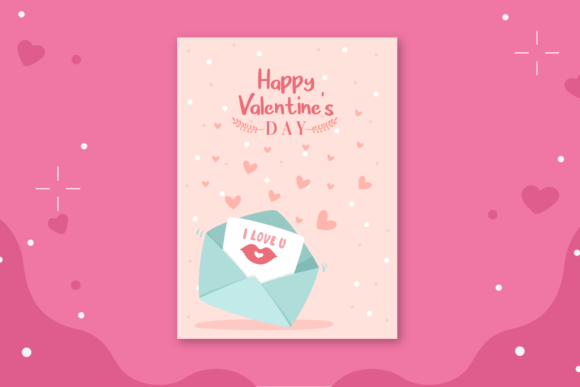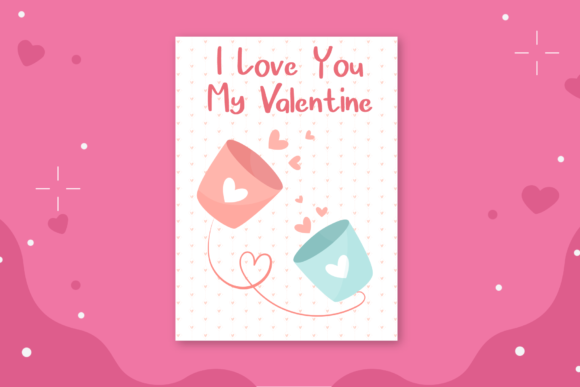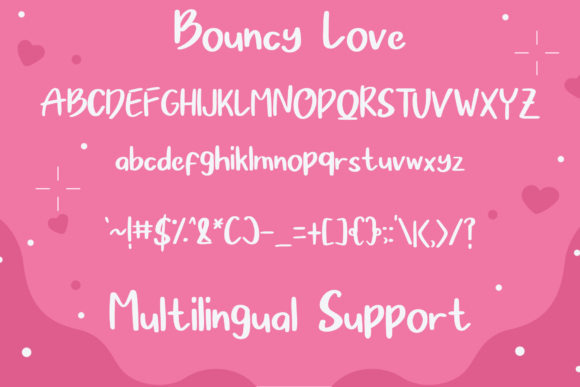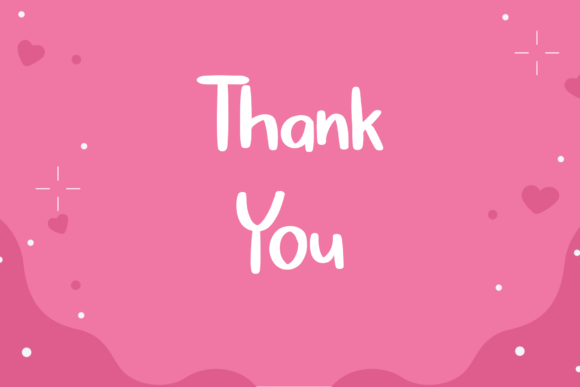
The Joy of Typography: Discovering the Bouncy Love Font
Have you ever been working on a design project and suddenly, the perfect font pops into your head? Maybe it’s the perfect combination of whimsy and sophistication that makes your heart skip a beat. For me, that moment came when I stumbled upon the Bouncy Love Font. Its playful, handwritten style is the perfect addition to any design that needs a dash of personality.
Bouncy Love Font is more than just a cute font – it’s a way to add a touch of warmth and personality to your designs. Whether you’re creating a greeting card, a social media post, or a logo, this font is sure to brighten up your work. Its value lies in its ability to convey a sense of playfulness and joy, making it a valuable tool for designers looking to add some visual interest to their projects.
Bouncy Love Font Key Features
- Character Set: 1280 glyphs, including Latin, Cyrillic, and Greek alphabets, as well as various symbols and emojis
- Font Size: Available in 8 font sizes, ranging from 8pt to 72pt
- Resolution: Supports high-resolution displays (Retina, 4K, etc.) with crisp and clear rendering
- Unique Characteristics: Features a playful, bouncy design with varying line widths, giving it a fun and energetic feel
- Font Weight: Available in 6 font weights, from Light to Black, allowing for a range of design possibilities
Bouncy Love Font Review
Overall, I think the Bouncy Love Font is a fun and playful addition to any design project. It’s perfect for those looking to add a whimsical touch to their branding or marketing materials. ✨ The font’s irregular shapes and bubbly lines give it a unique, hand-drawn feel that’s sure to grab attention.
Some of the things that really work well in this font include:
- Its ability to add a touch of personality to designs
- Its versatility – it can be used for a wide range of applications, from logos to social media graphics
- Its fun and carefree vibe, which is perfect for projects that need a bit of a lift
- It may not be the best choice for formal or professional designs, as its playful nature can come across as unpolished
- It can be difficult to read at smaller sizes, due to the font’s irregular shapes and spacing
- It may not be suitable for designs that require a high level of precision or accuracy
Overall, I think the Bouncy Love Font is a great choice for designers looking to add a bit of whimsy to their work. While it may have some limitations, its unique personality and versatility make it a great addition to any design project.
Tips for Getting the Most Out of Bouncy Love Font
Use Bouncy Love Font for creating eye-catching headings and titles.
Combine it with other playful fonts to create a unique visual identity.
Experiment with different font sizes and colors to add depth and visual interest.
Bouncy Love Font is ideal for:
Creative and playful branding.
Valentine’s Day and love-themed designs.
Children’s book illustrations and educational materials.
Alternative Font Options to Bouncy Love Font
Great Vibes Font is a fun, cursive script font that is perfect for adding a playful touch to designs. It’s great for use in titles, headings, and quotes. When to use: Social media posts, advertisements, and wedding invitations.
Comparison: Great Vibes Font is more elegant and refined compared to Bouncy Love Font, which is bolder and more energetic. Great Vibes Font is ideal for those who want a more subtle, yet still playful, font.
Pacifico Font is a beautiful, modern script font that is perfect for adding a touch of sophistication to designs. It’s great for use in titles, headings, and body text. When to use: Luxury brands, high-end advertisements, and elegant invitations.
Comparison: Pacifico Font is more elegant and refined compared to Bouncy Love Font, which is bolder and more energetic. Pacifico Font is ideal for those who want a more luxurious and sophisticated font.
Dancing Script Font is a fun, cursive script font that is perfect for adding a playful touch to designs. It’s great for use in titles, headings, and quotes. When to use: Party invitations, social media posts, and advertisements.